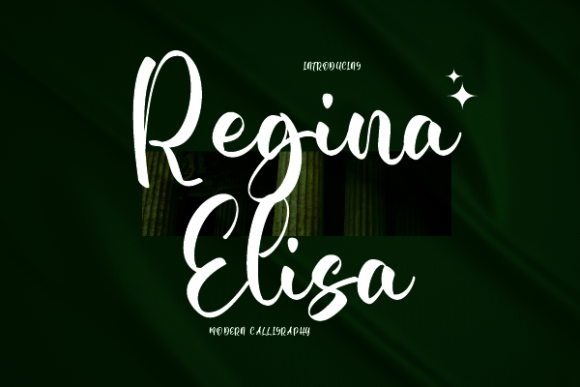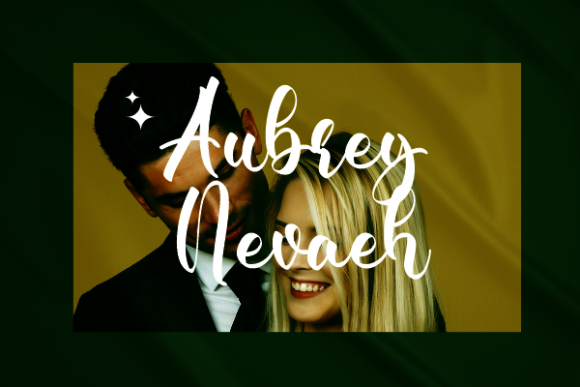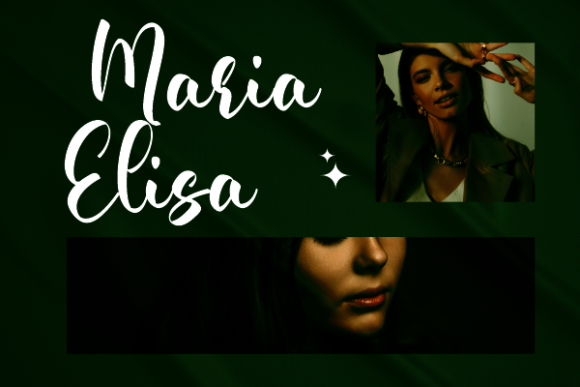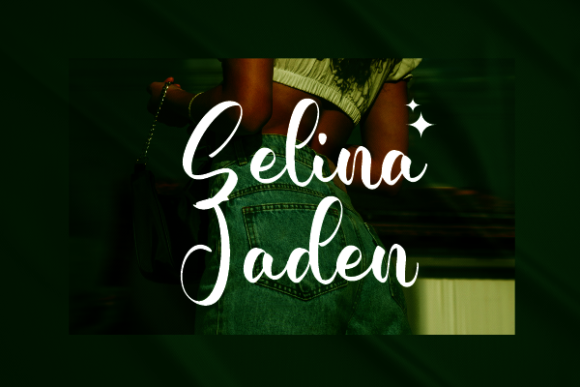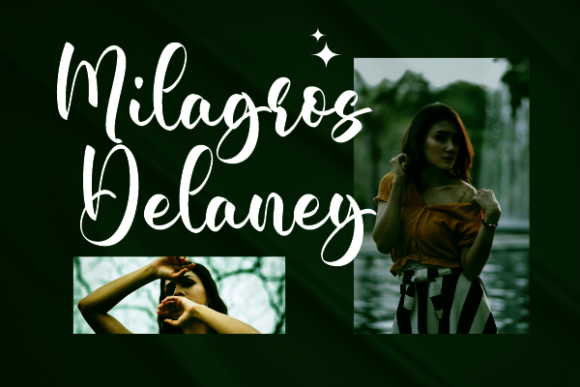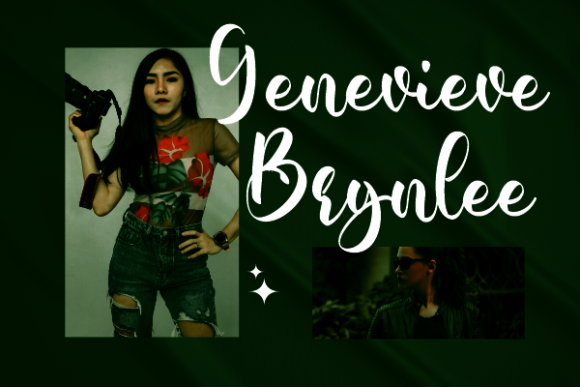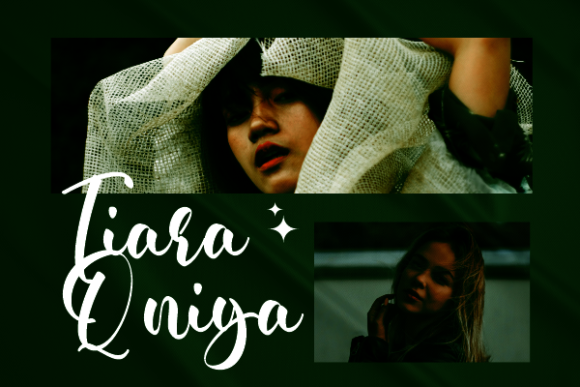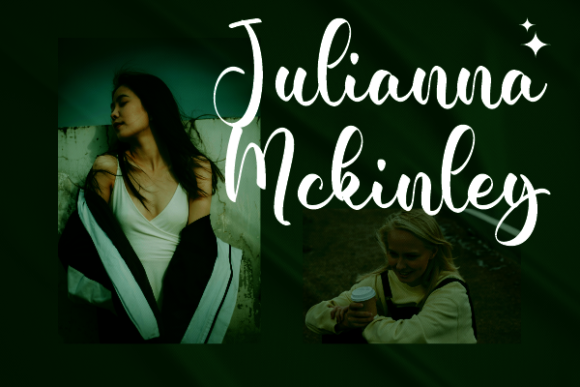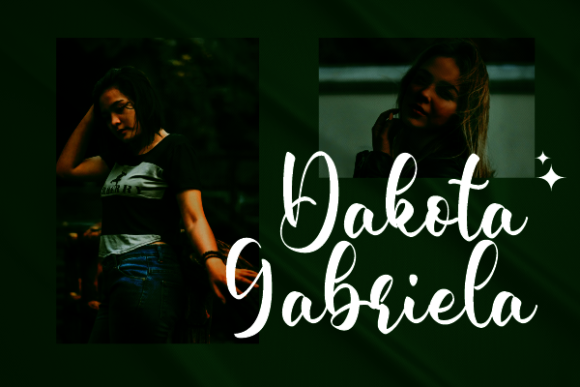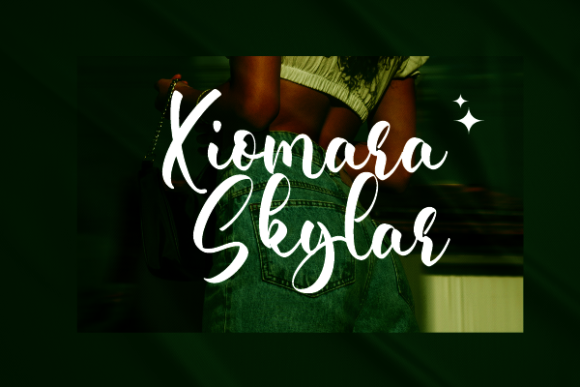
Regina Elisa Font
About Regina Elisa Font
Regina Elisa’s letters are perfect for wall displays, wedding invitations, social media post logos, advertisements, product packaging, product designs, labels, photography, watermarks, invitations, stationery, and any project that requires handwritten typography.